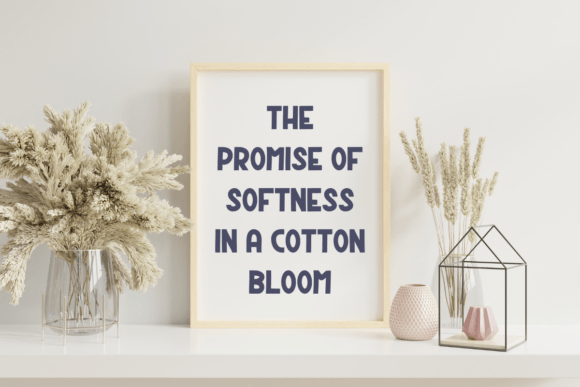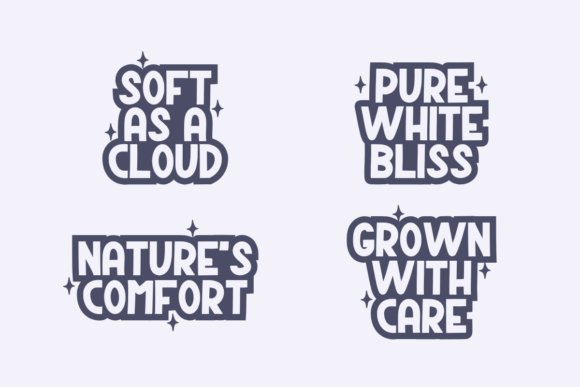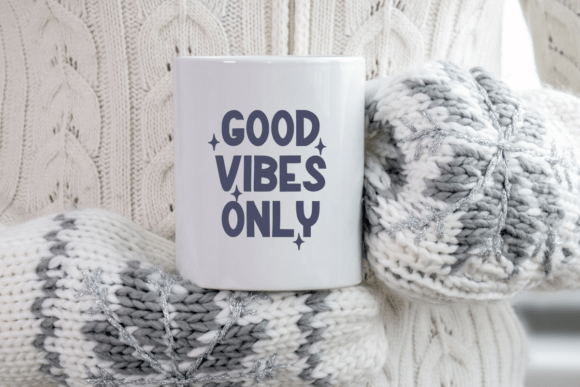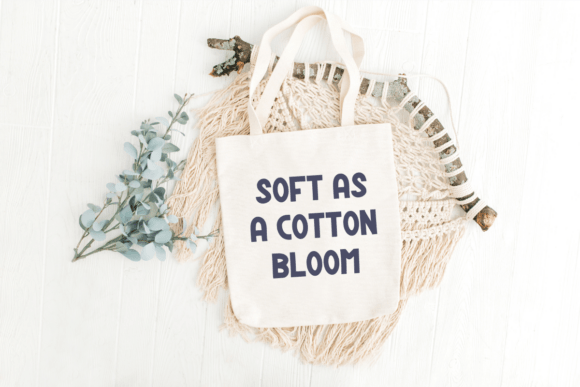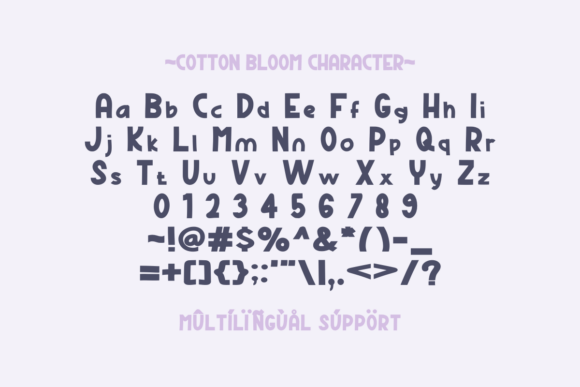
Cotton Bloom Font: The Perfect Playful Companion for Crafters and Designers
Are you a crafter, designer, or maker looking for a font that adds a touch of playfulness and friendliness to your projects? Look no further than the Cotton Bloom font! This adorable font is perfect for a wide range of creative endeavors, from crafts and planners to KDP, stickers, greeting cards, and more.
What is Cotton Bloom Font?
Cotton Bloom is a unique and charming font that is sure to capture the hearts of crafters, designers, and makers alike. Its cute and friendly style makes it an ideal choice for anyone looking to add a personal touch to their projects. Whether you’re creating DIY crafts, designing planners, or working on KDP projects, Cotton Bloom is the perfect companion.
Perfect for Cricut, Sublimation, and Creative DIY Projects
One of the best things about Cotton Bloom is its versatility. This font works seamlessly with popular cutting machines like Cricut, making it perfect for crafters who love to create custom signs, decals, and other decorative items. Additionally, Cotton Bloom is optimized for sublimation, allowing designers to create stunning heat transfers for ceramics, fabric, and more.
For DIY enthusiasts, Cotton Bloom is a dream come true. Use it to create custom stickers, greeting cards, and other paper crafts that are sure to impress. The font’s playful style also makes it perfect for planners, journals, and other creative projects.
Why Choose Cotton Bloom Font?
So, what sets Cotton Bloom apart from other fonts? Here are just a few reasons why crafters, designers, and makers love this font:
- Playful style: Cotton Bloom has a unique and charming style that’s sure to add a touch of personality to your projects.
- Versatility: This font works well with a wide range of creative projects, from crafts and planners to KDP and stickers.
- Ease of use: Cotton Bloom is easy to read and works well in both digital and print formats.
- Customization: Use Cotton Bloom to create custom projects that reflect your personal style.
Inspiration for Cotton Bloom Font
Still looking for inspiration? Here are a few ideas to get you started:
- Create custom stickers and washi tape for your planners and journals.
- Design personalized greeting cards and gift tags for special occasions.
- Make custom signs and decals for your home or office.
- Develop a unique brand identity for your craft business using Cotton Bloom.
- Cotton Bloom is a playful font perfect for crafts, planners, KDP, stickers, and greeting cards.
- This font works well with Cricut, sublimation, and creative DIY projects.
- Cotton Bloom is ideal for crafters, designers, and makers looking to add a personal touch to their projects.